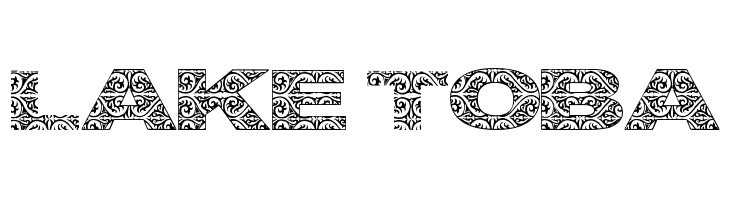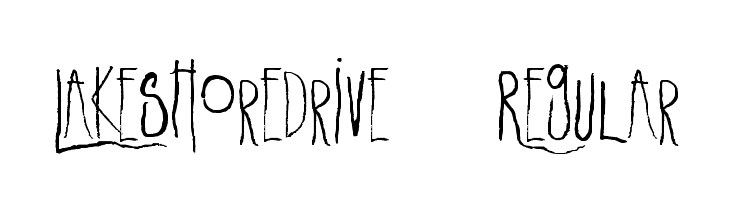
A futuristic, angular font with a bold, sci-fi aesthetic.
A bold, geometric font with a futuristic, digital aesthetic.
A bold, modern font with unique cross motifs in each character.
A bold, geometric font with a futuristic and modern aesthetic.
A bold, geometric font with a futuristic and digital aesthetic.
A futuristic and angular font with sharp, geometric forms.
A bold, geometric font with a futuristic and tech-inspired design.
An elegant, cursive font with intricate swashes and a refined, artistic style.
An artistic, irregular font with jagged edges and a hand-crafted appearance.
A dynamic, expressive handwritten font with fluid, elongated strokes.
A playful, rounded font with a hand-drawn, whimsical style.
A playful, handwritten font with rounded, smooth letterforms.
A bold, vintage decorative font with distressed textures and ornate details.
An elegant, flowing script font with graceful curves and cursive strokes.
A bold, distressed font with a vintage, industrial feel.
A playful, bold, handwritten-style font with rounded characters.
A casual, handwritten font with a flowing and dynamic style.
A whimsical font using fish silhouettes to represent characters, ideal for aquatic-themed projects.
A delicate and elegant script font with flowing, graceful strokes.
An ornate and decorative serif font with intricate details.
A playful, bold, hand-drawn font with rounded strokes and a whimsical touch.
A bold, playful font with rounded edges and a hand-drawn feel.
A bold, oblique font with rounded, dynamic characters.
A bold, blackletter-inspired font with a dramatic and gothic style.
A playful and jagged font with bold, irregular shapes and dynamic energy.
An elegant script font with fluid, sweeping strokes and graceful curves.
A high-contrast serif font with elegant, refined strokes and sharp serifs.
A playful, handwritten font with elongated, flowing characters.
A playful, casual handwritten font with smooth, flowing lines and consistent stroke width.